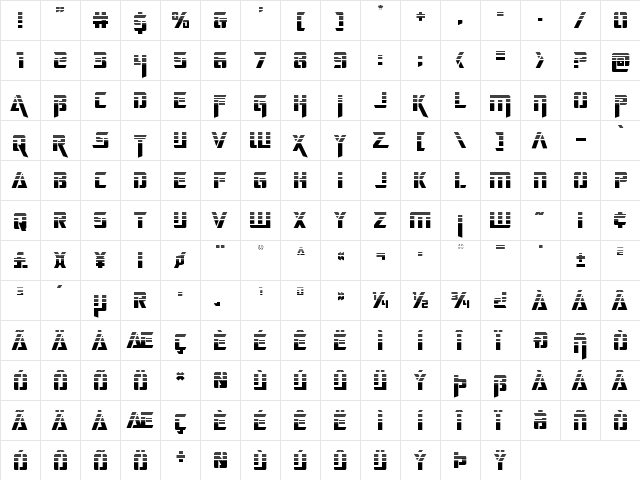
Deceptibots Halftone Regular
Design Context for Deceptibots Halftone Typeface
Deceptibots Halftone is a composed and adaptable typeface that performs quietly and consistently across a wide range of design contexts.
Pro Tip: Use Deceptibots Halftone in both headline and body roles to test its range before committing to a single application.